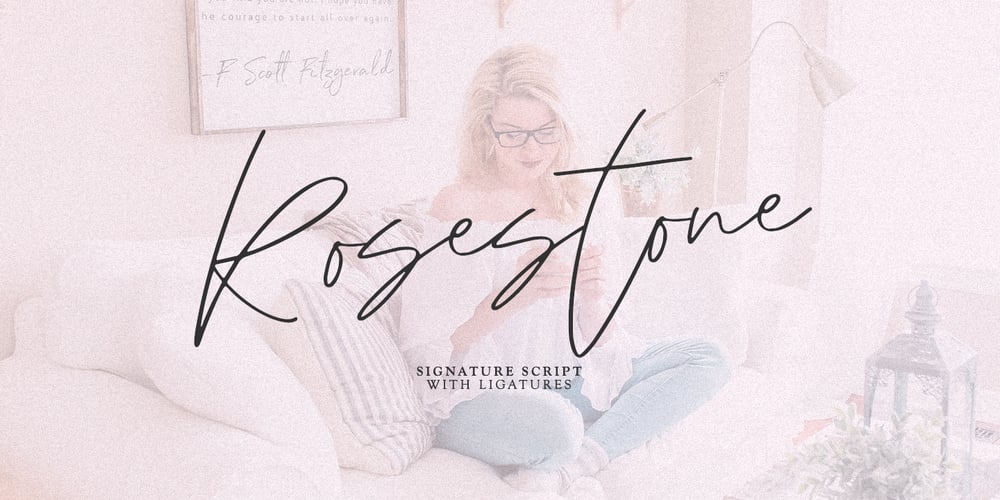
Rosestone
Rosestone font
Rosestone Font Family was designed by Dmitrii Chirkov and published by Supfonts. Rosestone contains 1 styles and family package options. Rosestone is new signature script. This will give your text a unique and natural look. It is ideal for signatures, postcards, greetings, websites, blogs, and more.Includes: Uppercase and lowercase Numbers and punctuation Foreign language support Ligatures Check out my blog: https://www.instagram.com/zloillev pinterest.com/dmitriychirkov7 Enjoy